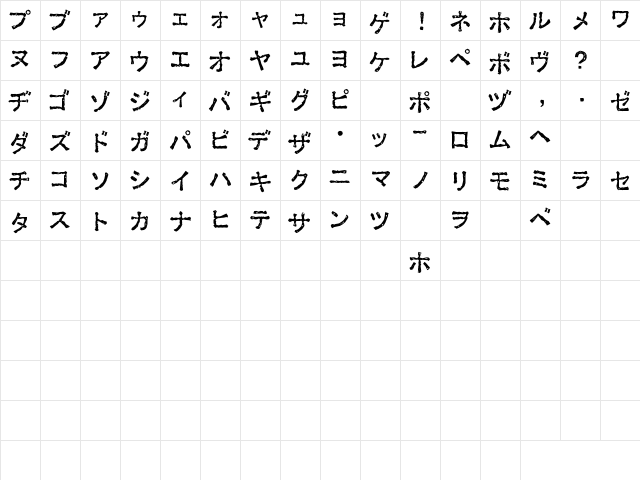
Ex Kata Damaged Regular Font Preview
Ex Kata Damaged Regular
Design Context for Ex Kata Damaged Typeface
Ex Kata Damaged is a composed and adaptable typeface that performs quietly and consistently across a wide range of design contexts.